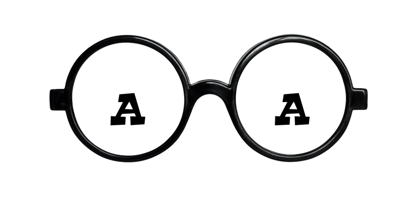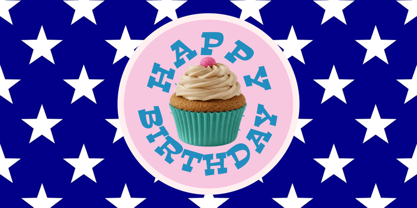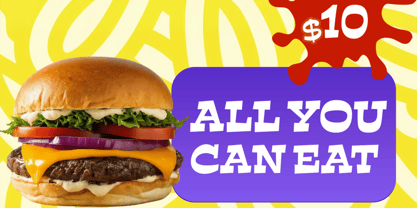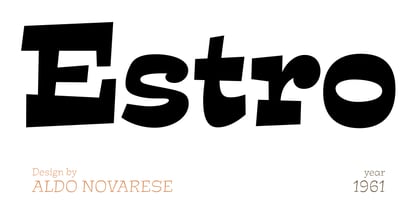
R41 Estro
La familia tipográfica R41 Estro fue diseñada por Aldo Novarese, Fulvio Bisca, Stefano Torregrossa y publicada por Reber R41. R41 Estro contiene 5 estilos y opciones de paquete familiar. Más información sobre esta familia
R41 Estro was first designed in 1961 by Aldo Novarese for Nebiolo, and is one of their so-called “fantasy” fonts. Like the others in the series, Estro has a whimsical design to draw the reader’s attention in new ways. Its unique shape easily adapts to different styles and the most varied projects, imaginative or austere. With it, a designer can solve everyday aesthetic problems with excellent results.
Diseñadores: Aldo Novarese, Fulvio Bisca, Stefano Torregrossa
Reber R41 is an Italian company founded in Spresiano, Treviso, in 1960 by Renato Bernardi, inventor of his own method of dry transfer type, and still run by his family. Since 1969, R41 has produced dry-transfer adaptations of iconic designs from Nebiolo Type Foundry, including its most experimental creations designed for the booming Italian advertising industry. Designer Aldo Novarese, who retired from Nebiolo in the early ’70s, worked with Reber R41 for years afterward designing brands, catalogues, advertising and of course…typefaces. Now Reber R41 provides new digitizations of the work of Novarese and Nebiolo of Turin, brought together in a unique collection that preserves the best of historic Italian typography of the twentieth century.